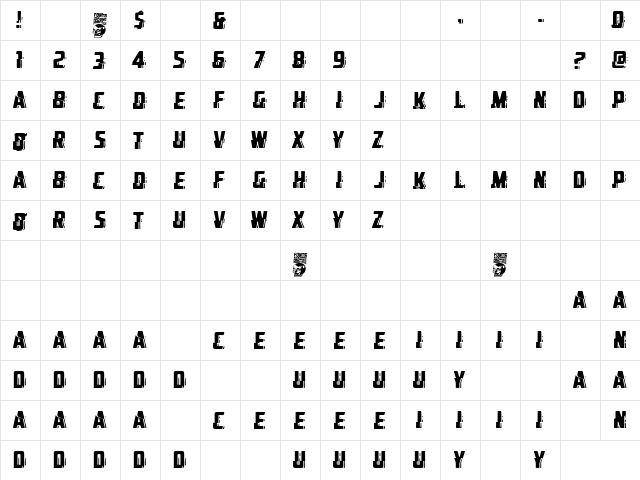
comandante Glitch Regular
| Designer | Woodcutter Manero |
Design Context for comandante Glitch Typeface
comandante Glitch is a composed and adaptable typeface that performs quietly and consistently across a wide range of design contexts.